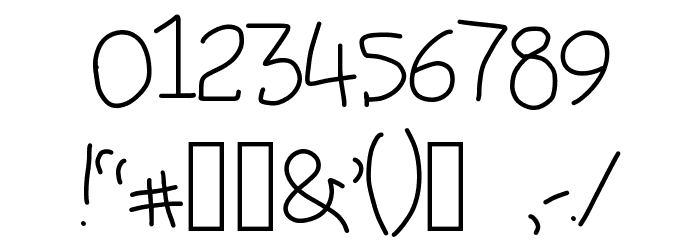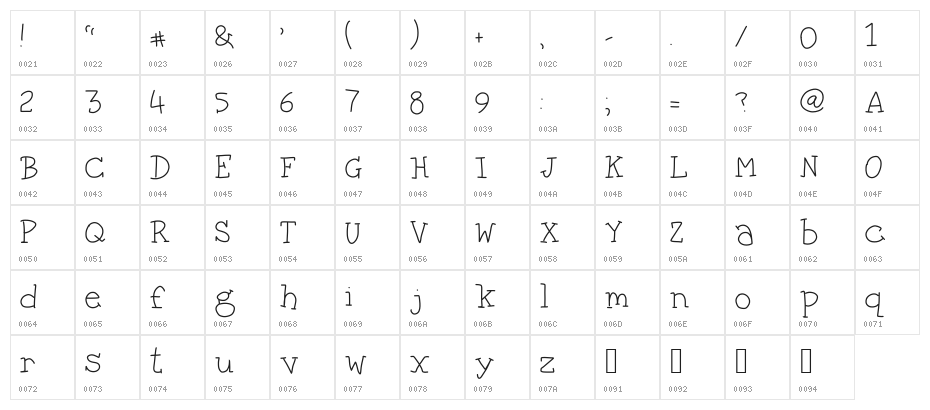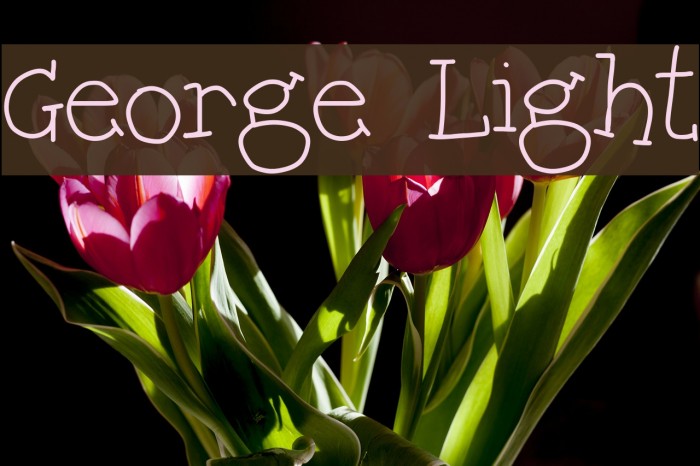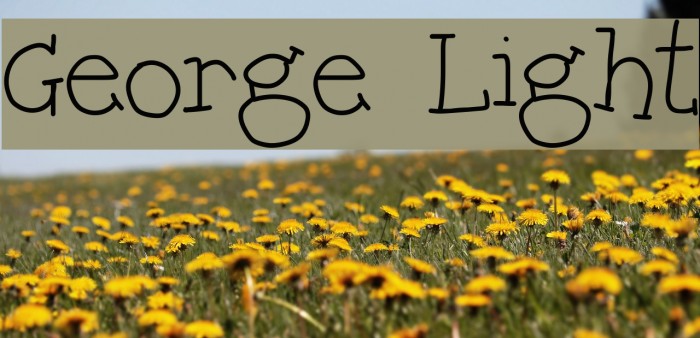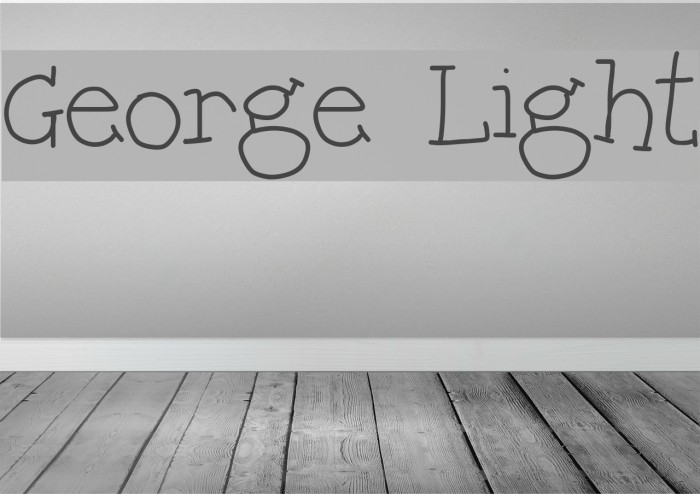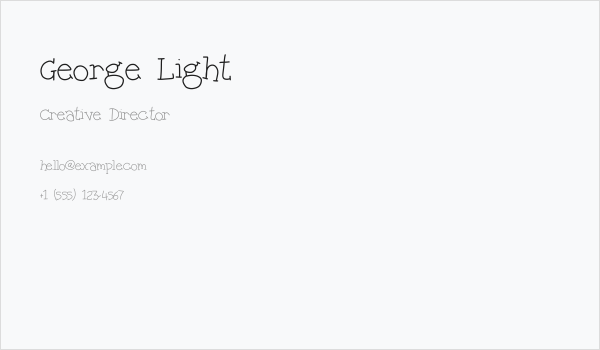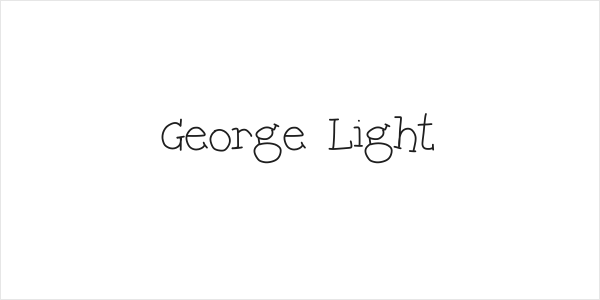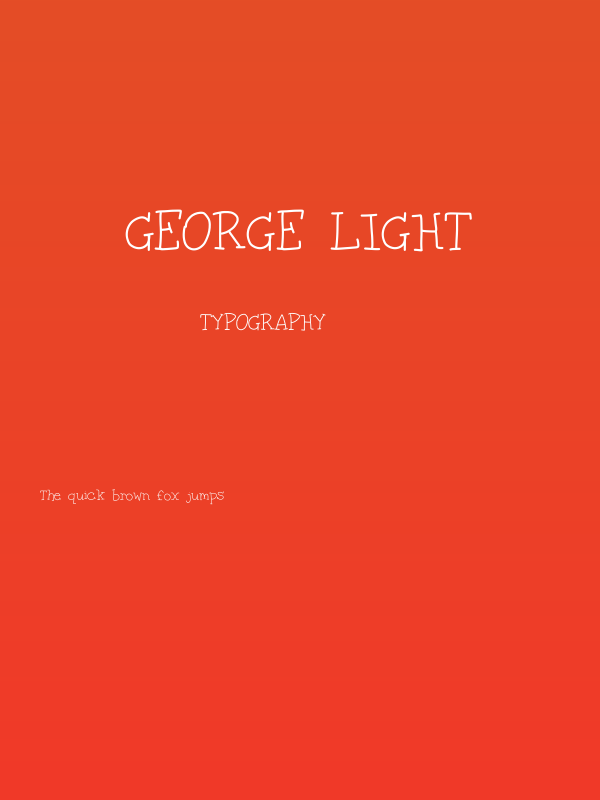
George Light Font
George Light Description
This font features a playful and whimsical design, characterized by its hand-drawn appearance. The letters have a casual, informal style with a slight tilt, giving them a dynamic and lively feel. The strokes are consistent in width, providing a uniform look across all characters. The rounded edges and slight irregularities in the letterforms add to its charm, making it suitable for creative and fun projects. The font includes a full set of uppercase and lowercase letters, numbers, and a variety of special characters, ensuring versatility in its application.
| Proposed Projects | Ideal for children's books, greeting cards, playful branding, and creative posters. |